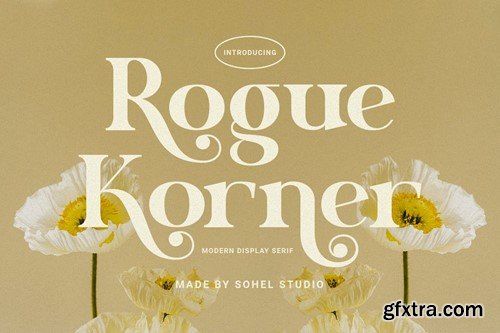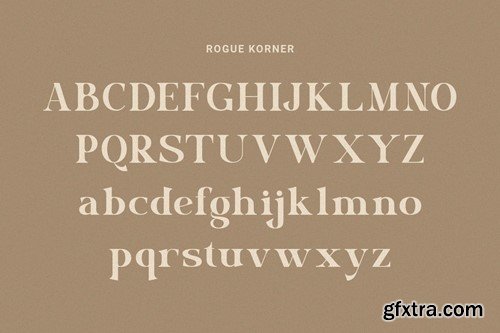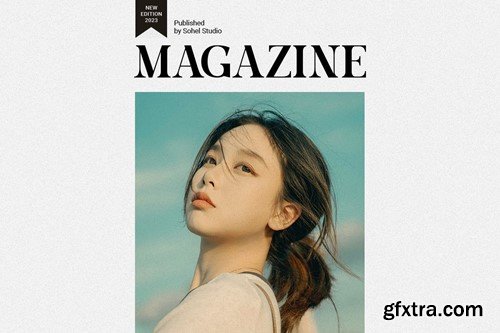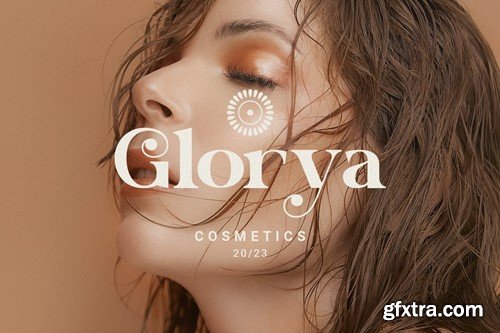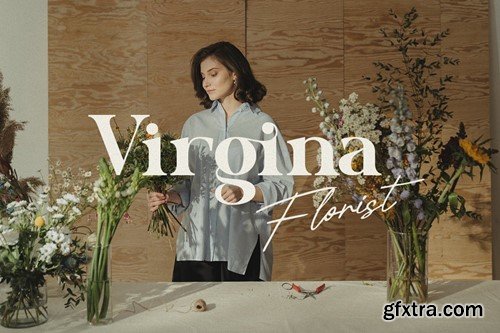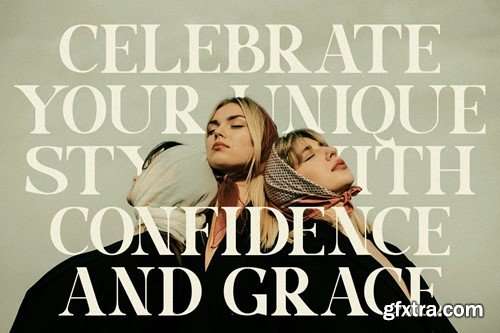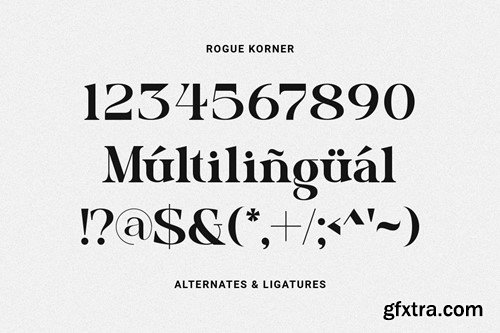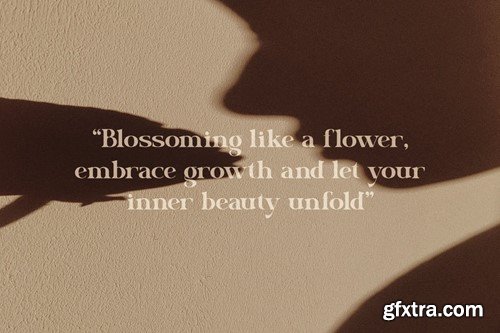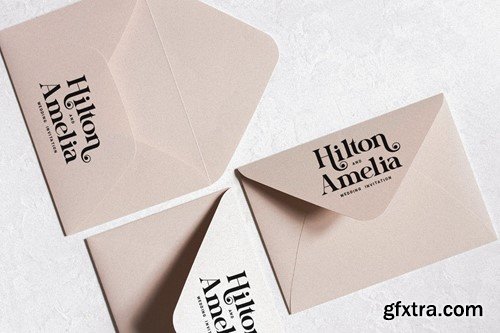
rogue korner - 强头标题字体 UH9B8EA
Rogue Korner is a retro display serif font that exudes a classic charm and bold character. With its design inspired by retro styles, this font brings an elegant touch and evokes a sense of the past. Each letter is meticulously crafted with careful attention to detail and proportion, resulting in a visually appealing and unique appearance. Rogue Korner is perfect for projects that require a vintage feel, such as posters, logos, packaging, and promotional materials that aim to capture a nostalgic and sophisticated atmosphere. This font will add a special touch to your designs and captivate viewers with its retro allure and distinctiveness. Rogue Korner Features: While using this product, if you encounter any problem or spot something we may have missed, please don't hesitate to drop us a message. We'd love to hear your feedbacks in order to further fine-tune our products. Thanks and have a wonderful day .